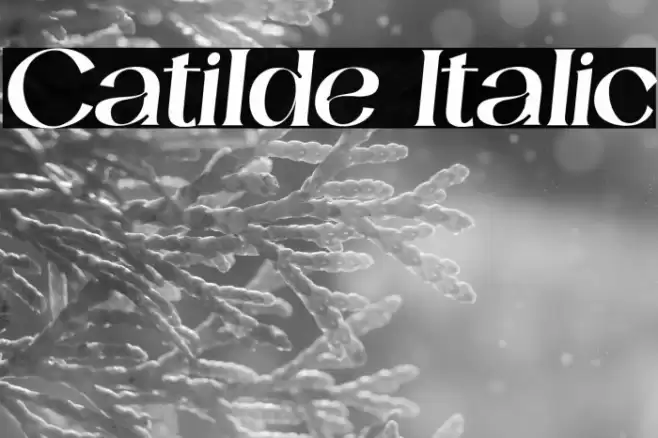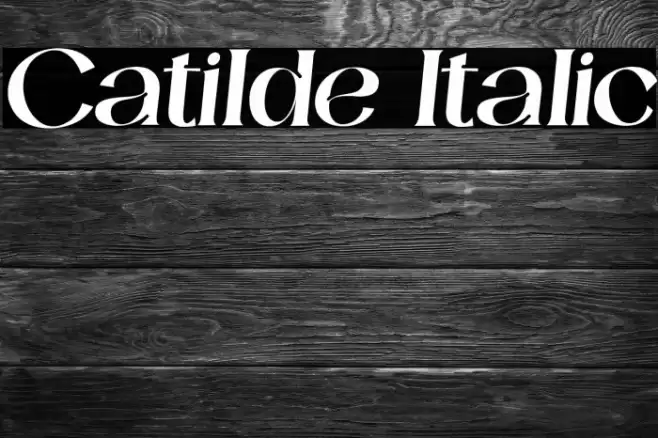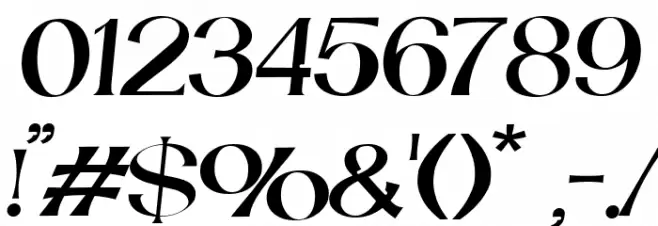
Catilde Italic Font
Catilde Italic Description
This font features a distinctive italic style with elegant, flowing curves and a modern aesthetic. The uppercase letters are bold and dynamic, with a slight slant that adds a sense of movement. The lowercase characters maintain a consistent style, offering a harmonious blend of sharp angles and smooth curves. The numerals are clear and legible, with a unique flair that complements the overall design. Special characters are thoughtfully crafted, maintaining the font's cohesive look. This typeface is ideal for projects that require a touch of sophistication and modernity.
A modern italic font with elegant curves and dynamic slant from Uncategorized fonts.
- Proposed Projects: Ideal for branding, editorial design, fashion magazines, and luxury product packaging.
- Use Case: Headlines, Logos, Editorial Design
Catilde Italic UPPERCASE
Catilde Italic LOWERCASE
Catilde Italic OTHER CHARS